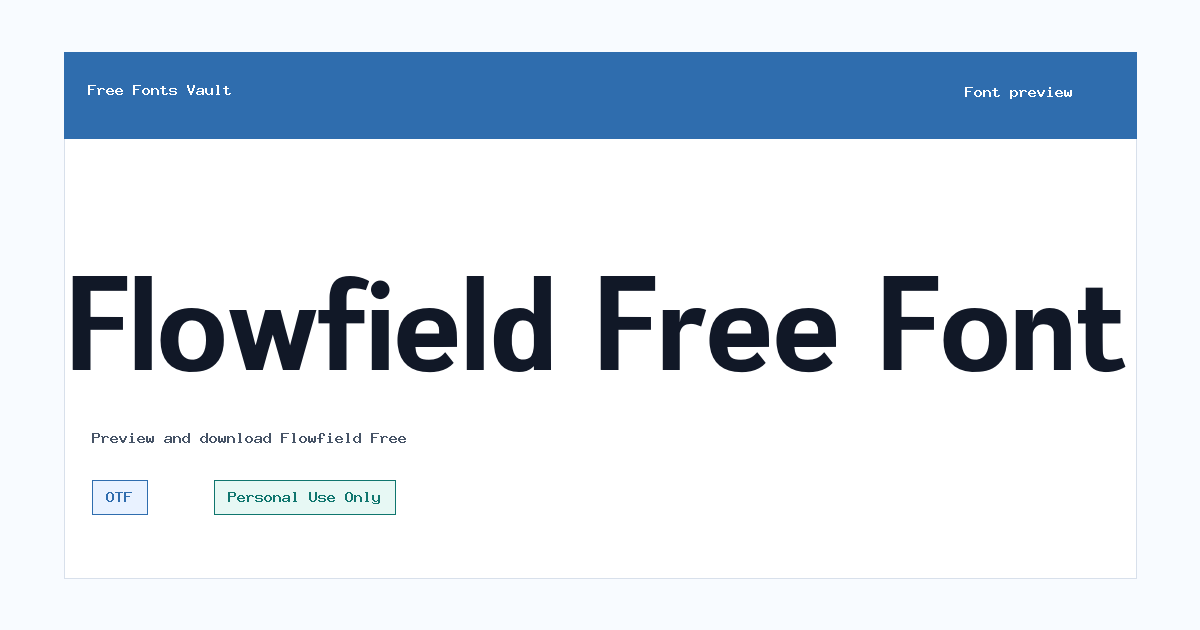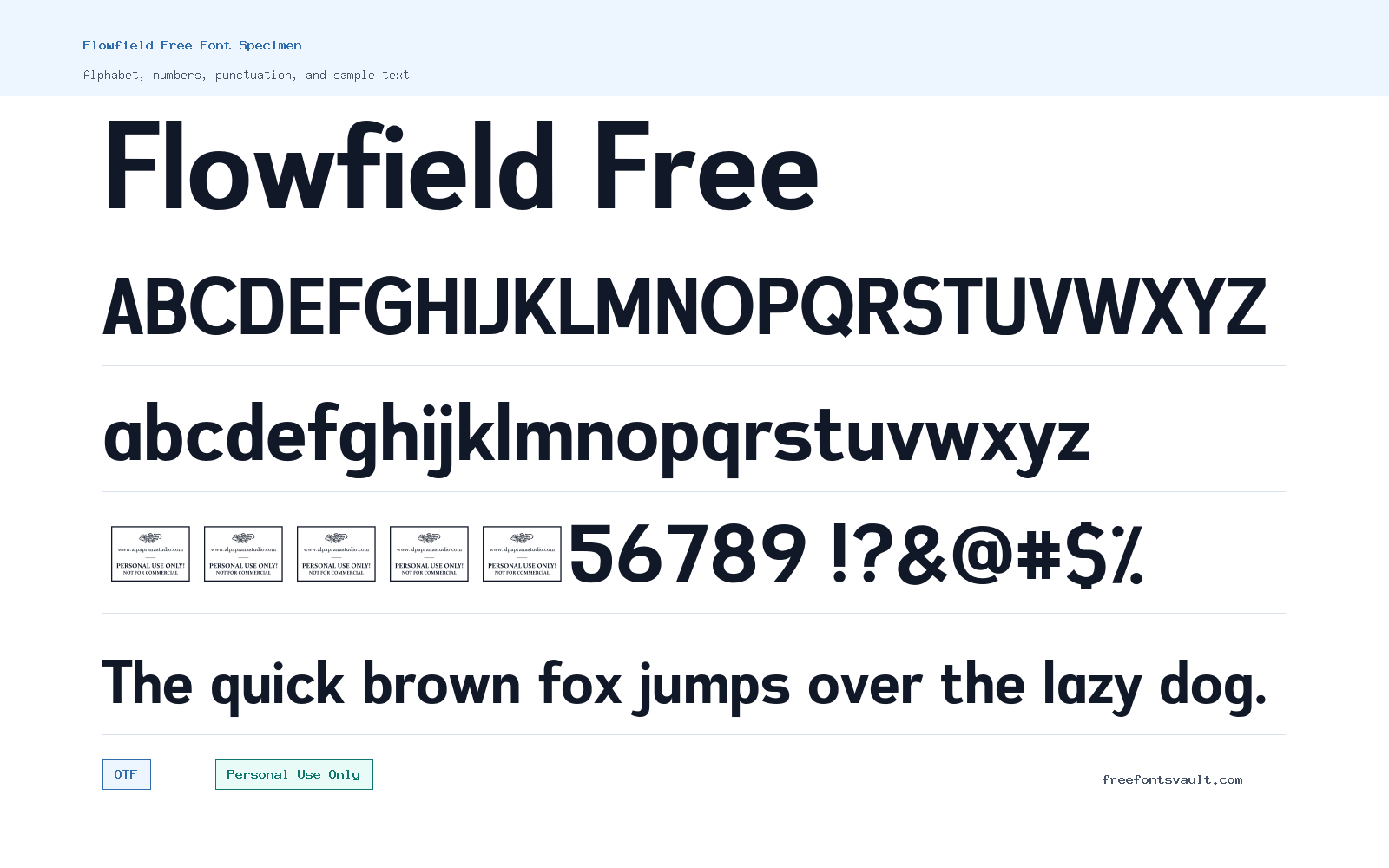
Flowfield Free
Flowfield Free is a bold, upright sans serif font with a clean headline feel. It is best treated as a display font for short text, branding drafts, poster titles, and layout mockups where you want strong shapes without ornate decoration.
Flowfield Free has a solid sans serif structure with firm verticals, rounded details, and a compact rhythm that makes words feel direct and confident. The letters look especially comfortable in large sizes, where the smooth curves and heavy strokes can carry a title, label, or logo concept. It is not a delicate text face, and it should not be judged only at small sizes. Try it with a few real words in the preview, especially names, product titles, numbers, and punctuation, because display fonts can change character quickly once spacing and symbols are involved.
Use Flowfield Free when you need a clean title style rather than a long-reading typeface. It can work for poster headlines, social graphics, packaging mockups, short website hero text, event titles, and brand exploration. For logo work, test uppercase and lowercase versions of the same name, then adjust tracking by hand if the spacing feels tight around round letters or narrow letters. For web mockups, use it sparingly: a single headline or button-style label will usually feel clearer than a full paragraph. Pair it with a simple neutral sans serif for body copy so the page keeps its hierarchy and the display face does not have to do every job.
• Bold-looking sans serif display style suited to short titles and mockups
• Works best at medium to large sizes where the letter shapes stay clear
• Logo concepts and brand name exploration
• Poster headlines and event graphics
• Website hero text and landing page mockups
• Social media titles, thumbnails, and quote graphics
• Packaging drafts, labels, and presentation boards
• Short editorial headings rather than long body text
Start by previewing the exact words you plan to use, not just the alphabet. Check uppercase titles, lowercase names, numbers, and punctuation together. In the rendered specimen, some symbol and number behavior deserves a closer look before final artwork, so export a test image or outline the type in your design app before committing to a layout. Keep line lengths short, add breathing room around the text, and pair it with a restrained body font such as a neutral grotesk, humanist sans, or plain system sans. Avoid pairing it with another heavy display face unless you are intentionally building a loud poster style.
What kind of font is Flowfield Free?
It is a sans serif display font with a bold, clean, upright look. It is better for headlines, logos, and short text than for long paragraphs.
What should I pair with Flowfield Free?
Pair it with a simple, readable sans serif for body text. Let Flowfield Free handle the main title or brand wordmark while the supporting font carries paragraphs, captions, and interface text.